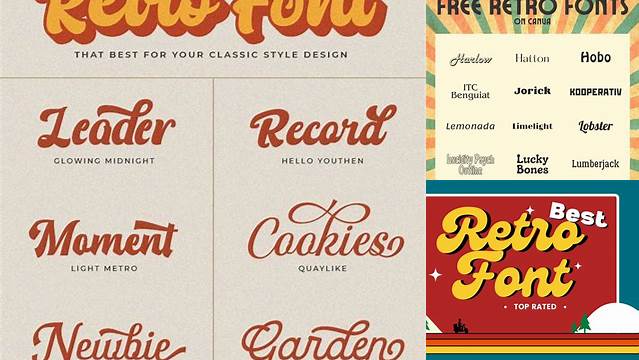
Best Retro Fonts: Top Picks From Reddit
Hey everyone! If you're diving into design projects and want to add a touch of nostalgia, you've come to the right place. We're going to explore some of the best retro fonts that the Reddit community has been raving about. It's like getting insider tips from a bunch of design-savvy folks who've already done the hard yards. From groovy 70s vibes to sleek 80s flair and timeless 50s charm, retro fonts are making a huge comeback, and for good reason! They bring character, personality, and a distinctive feel to any design, whether it's for a logo, website, poster, or even a t-shirt. So, let's cut to the chase and uncover the gems that will make your designs pop with vintage appeal.
Exploring the Allure of 70s Disco Fonts
Alright, let's talk about those iconic 70s disco fonts, guys! When you think of the 70s, what comes to mind? Probably bell-bottoms, vibrant colors, and lots of sparkle, right? Well, the typography from that era perfectly captures that energy. These fonts often feature rounded, bubbly shapes, bold outlines, and a general sense of playful extravagance. Think of album covers from bands like ABBA or Bee Gees – that's the kind of vibe we're channeling. Reddit discussions often highlight fonts that emulate this feel, perfect for projects that need to exude fun, freedom, and a bit of funk. We're not just talking about simple text; these fonts are statements. They command attention and immediately transport your audience back to a time of disco balls and groovy tunes. When choosing a 70s-inspired font, look for exaggerated curves, thick strokes, and sometimes even a bit of an italic slant to really amp up the retro feel. They’re fantastic for event posters, branding for music venues, or anything that needs a seriously funky personality. It’s amazing how a well-chosen font can encapsulate an entire era, and the 70s disco aesthetic is a prime example of that power. These fonts aren't just about legibility; they're about evoking an emotion and a specific cultural moment. Many designers on Reddit suggest looking for fonts that have that slight handmade feel, even if they're digitally created, as it adds to the authentic 70s charm. Some of the most popular choices often come with extended character sets, allowing for more creative typographic arrangements, which is super handy for unique branding. It’s all about capturing that era’s optimistic and flamboyant spirit.
Dive into the Boldness of 80s Memphis Design Fonts
Moving on to the totally tubular 80s! If the 70s were all about disco, the 80s brought us the eclectic and often delightfully chaotic Memphis Design fonts. This style is characterized by its geometric shapes, clashing colors, and a general disregard for traditional design rules. Think of Saved by the Bell, or those quirky graphics from early MTV. Reddit users often point out fonts that embody this playful, post-modern aesthetic. These fonts are usually bold, blocky, and sometimes incorporate abstract shapes or patterns within the letterforms themselves. They’re perfect for projects that want to stand out and have a vibrant, energetic personality. We're talking about fonts that are anything but boring. They are designed to be noticed, to be a conversation starter. The Memphis movement was all about breaking free from the minimalist trends that preceded it, and the typography reflects that perfectly. You’ll often find sharp angles mixed with rounded corners, contrasting line weights, and a general sense of asymmetry. These fonts are incredibly versatile for branding, packaging, and even editorial design when you want to inject a serious dose of fun and uniqueness. Many designers on Reddit highlight how these fonts can be used in unexpected ways, like breaking them up, layering them, or using them in bold, contrasting color combinations. It's this fearless approach to design that makes 80s Memphis fonts so enduringly cool. They offer a graphic punch that’s hard to ignore, making your work instantly memorable. If you're aiming for a design that screams '80s without being cliché, seeking out fonts with geometric influences and a playful spirit is the way to go. It's about embracing the bold, the bright, and the delightfully unconventional.
The Charm of 50s Script and Serif Fonts
Now, let's swing back to an earlier era: the fabulous 50s script and serif fonts. This decade was all about mid-century modernism, rock 'n' roll beginnings, and a general sense of optimistic futurism mixed with classic elegance. Reddit threads frequently mention fonts that capture this specific blend. Think of diner signs, classic car logos, and early television show titles. The script fonts from this era often have a brush-like quality, smooth curves, and a touch of playful swagger. They feel approachable and slightly informal, yet undeniably stylish. On the other hand, the serif fonts of the 50s often conveyed a sense of trustworthiness and sophistication, with clean lines and a classic appeal. They were used extensively in advertising and branding, aiming for a balance between friendly and professional. When you’re looking for that 50s vibe, keep an eye out for fonts that are slightly rounded, have a gentle flow, and perhaps a touch of retro flair without being over the top. These fonts are incredible for creating a warm, inviting atmosphere, perfect for branding a cafe, a bakery, or any business that wants to evoke a sense of classic Americana and friendly service. It’s that perfect balance of nostalgic charm and clean design that makes these fonts so appealing. Many discussions on Reddit emphasize that the best 50s fonts strike a chord between genuine vintage authenticity and modern usability. They should feel familiar and comforting, like a warm hug from the past, but also be perfectly readable on contemporary screens and print materials. It’s about capturing that idealized vision of post-war optimism and style.
Finding Free Retro Font Treasures on Reddit
One of the biggest questions designers grapple with is how to get their hands on awesome fonts without breaking the bank. Thankfully, the Reddit community is a goldmine for finding free retro font treasures. Subreddits like r/freebies, r/fonts, and even specific design-focused ones often have users sharing links to high-quality free fonts that capture various retro aesthetics. It’s not always about finding the exact obscure font from a 1960s advertisement; it's about discovering modern interpretations or genuinely free vintage gems that offer a similar vibe. People share links to Google Fonts, DaFont, Font Squirrel, and other reputable sites where you can download free fonts legally. The key is knowing what keywords to search for within these communities – think “groovy fonts free,” “80s font download,” “vintage script free,” and so on. It’s amazing how generous designers can be, sharing their discoveries and curated lists. You might find a bundle of free retro-style fonts shared by a user who's decluttering their digital library, or a thread where everyone contributes their favorite free finds. It takes a bit of digging, sure, but the reward of finding a unique, free font that perfectly fits your retro project is totally worth it. Plus, you’re getting recommendations straight from people who are actively using and testing these fonts, so you know they’re likely good quality. It’s a fantastic way to build a versatile font library without spending a dime, especially when you're just starting out or working on passion projects. Always double-check the licensing, though, as “free” can sometimes mean personal use only. But generally, the community is great about specifying license types.
Popular Retro Font Styles Discussed on Reddit
When you dive into Reddit discussions about retro fonts, a few recurring styles always seem to pop up. Beyond the general decades, people are passionate about specific stylistic niches. You’ll hear a lot about groovy 70s bubble fonts, which, as we touched on earlier, are all about those soft, rounded, and often psychedelic letterforms that just ooze good vibes. Then there are the bold, geometric 80s fonts that are less about curves and more about sharp lines, squares, and a generally loud presence – think of the early days of digital design and arcade games. Reddit users also frequently discuss mid-century modern sans-serif fonts, which offer a cleaner, more refined retro look often associated with the 50s and 60s. These tend to be sleek, geometric, and possess a certain understated elegance. Don't forget the vintage script and brush fonts, which evoke handwritten styles from various decades, adding a personal and often sophisticated touch. These can range from elegant cursive styles of the 40s and 50s to the more casual, hand-drawn looks of later years. People also talk about art deco inspired fonts, which, while technically earlier than the